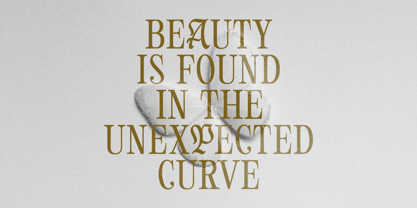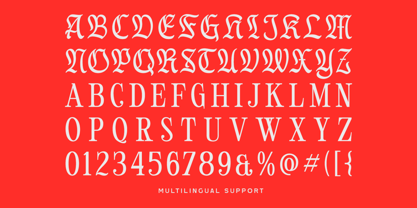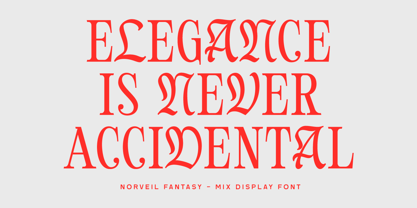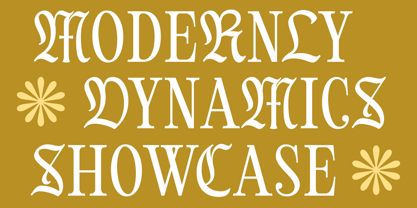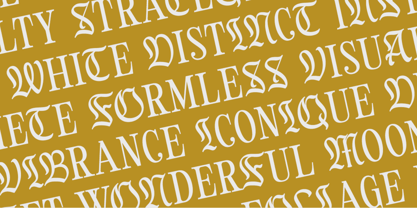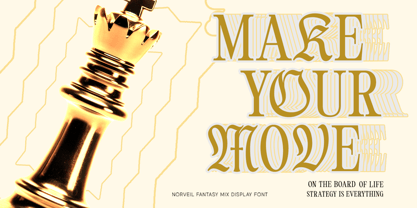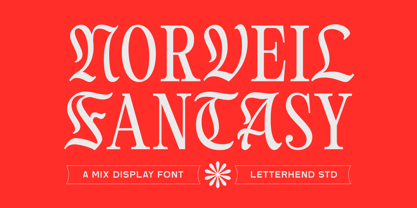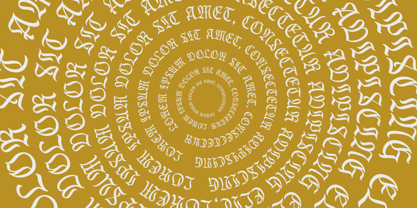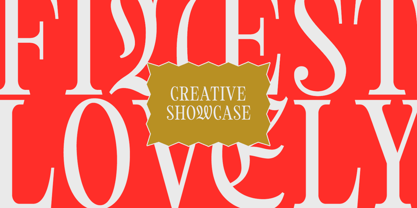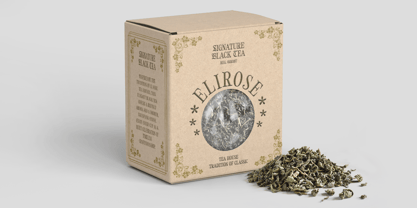
Norveil Fantasy
by Letterhend
The Norveil Fantasy Font Family was designed by Hendry Juanda and published by Letterhend. Norveil Fantasy contains 1 styles. More about this family
Norvel Fantasy blends refined serif structure with whimsical ornamental details, creating a display style that feels both timeless and delightfully unexpected. Graceful curves, flowing terminals, and decorative swashes soften its classic foundation, giving every word a distinctive rhythm with a hint of vintage charm.
Designers: Hendry Juanda
Foundry: Letterhend